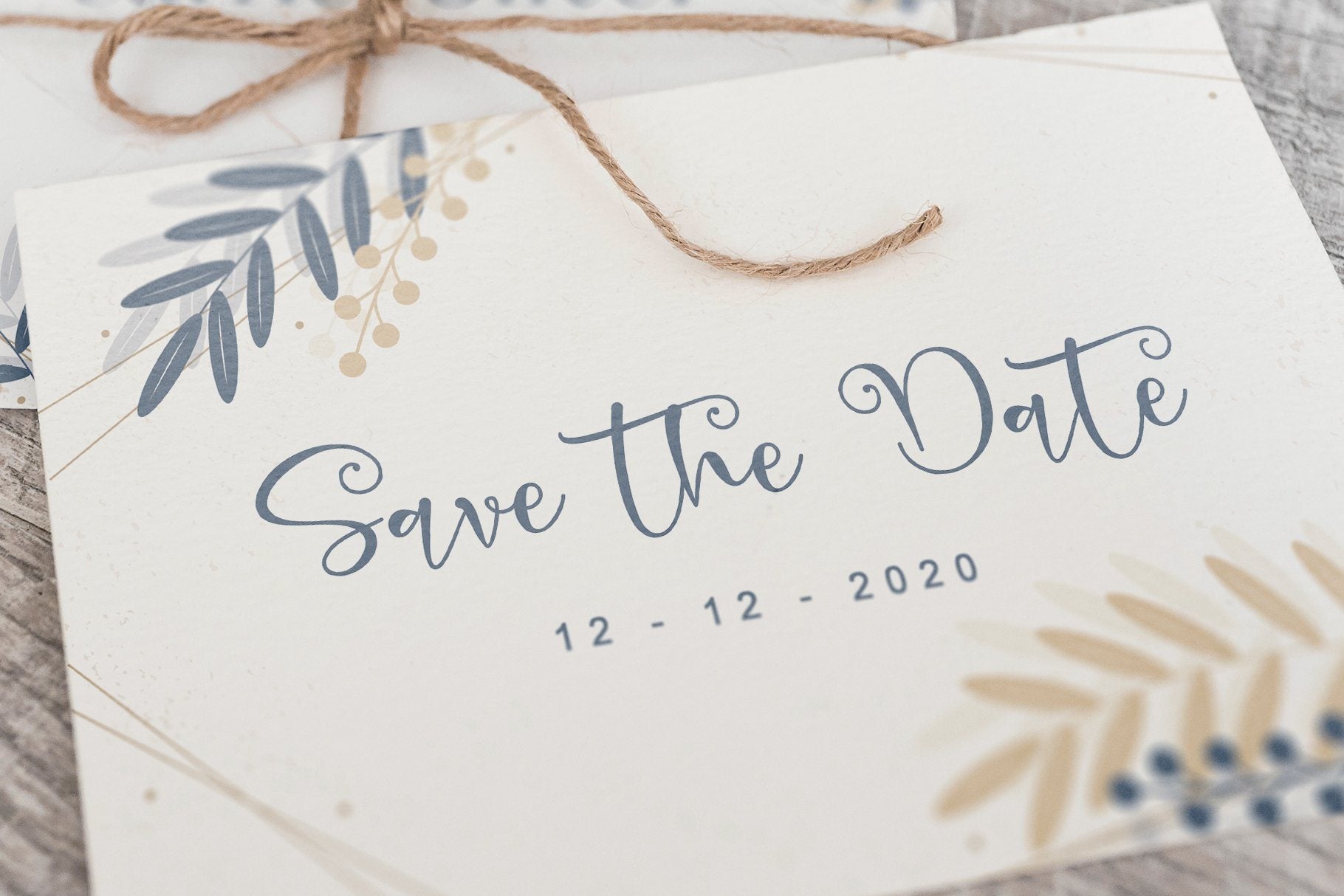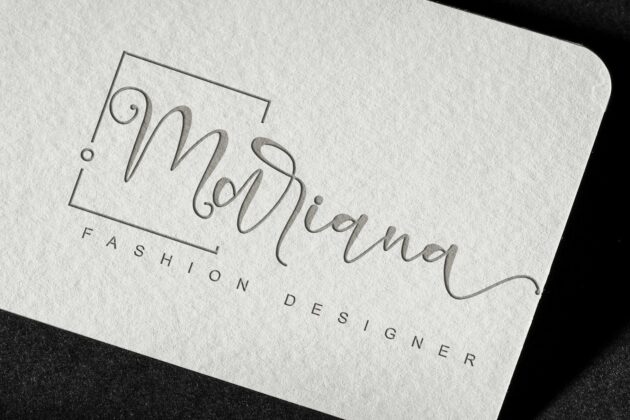
About Cheerful Day
Cheerful Day is a cute and casual handwritten font with an incredibly friendly feel. It features gorgeous swashes and ligatures that make this script incredibly versatile. Whether you’re looking for fonts for Instagram or calligraphy scripts for DIY projects, Cheerful Day will turn any creative idea into a true piece of art! Fall in love with this font and bring your projects to the highest levels! This font is PUA encoded which means you can access all of the glyphs and swashes with ease! It features a varying baseline, gorgeous glyphs, and stunning alternates. What’s Included : Cheerful Day (TTF, OTF, WOFF) Cheerful Day Italic (TTF, OTF, WOFF) Cheerful Day Bold (TTF, OTF, WOFF) Cheerful Day Bold Italic (TTF, OTF, WOFF) Works both on Mac & PC Support silhouette Simple installations Many features: Alternate, Swash and Ligature Accessible in the Adobe Illustrator, Adobe Photoshop, Adobe InDesign, CorelDraw, even work on Microsoft Word. Support multilingual; ä ö ü Ä Ö Ü ß ¿ ¡ To access the alternate glyphs, you need a program that supports OpenType features such as Adobe Illustrator CS, Adobe Photoshop CC, Adobe Indesign, and CorelDraw. More information about how to access alternate glyphs, check out this link ( http://goo.gl/ZT7PqK ) This font is PUA encoded which means you can access all of the playful glyphs and swashes with ease! It also features a wealth of special features including alternate glyphs and ligatures. To stay up to date for my latest job, follow me and let’s be friends because there will be many promos. Our other products: BESTSELLER WELLDONE MILEADILA BEAUTIFUL KISSES ANGELIN GAMOS HERTINA JENNIE ANTIKA AURORA BLACK PINK SIGNATURE California Street BESTOWENS FAMILY